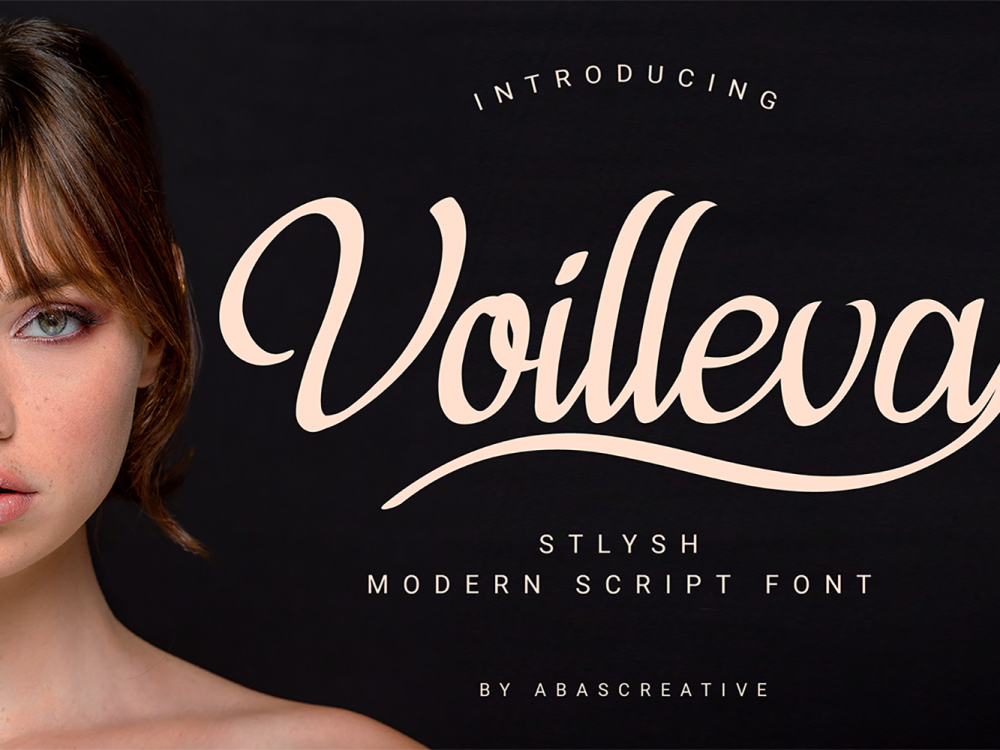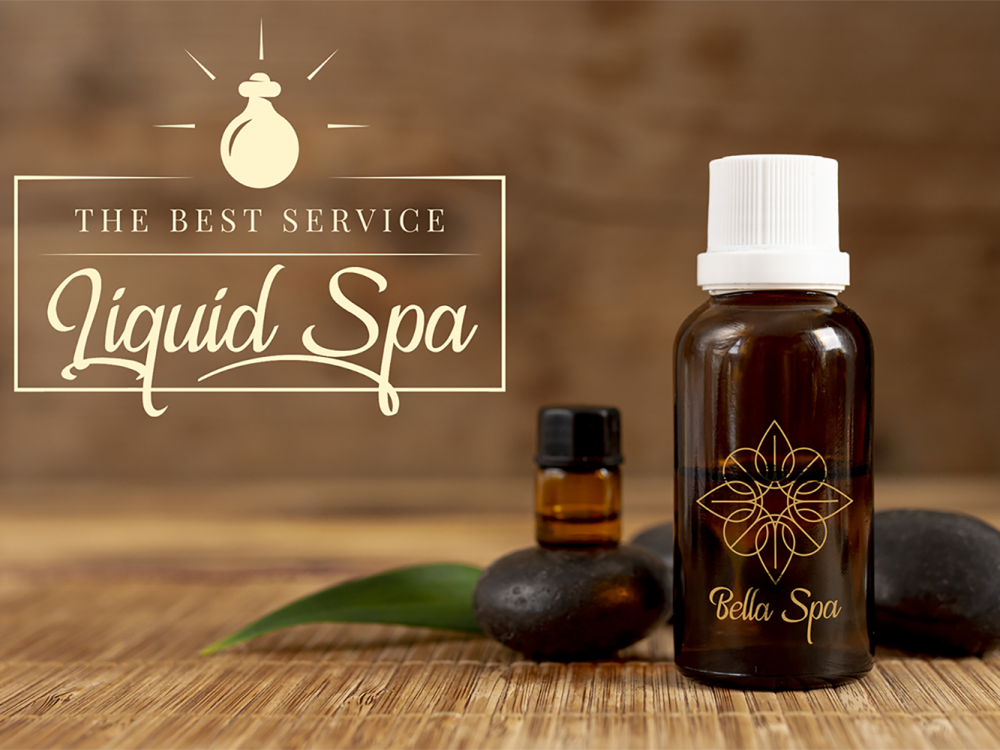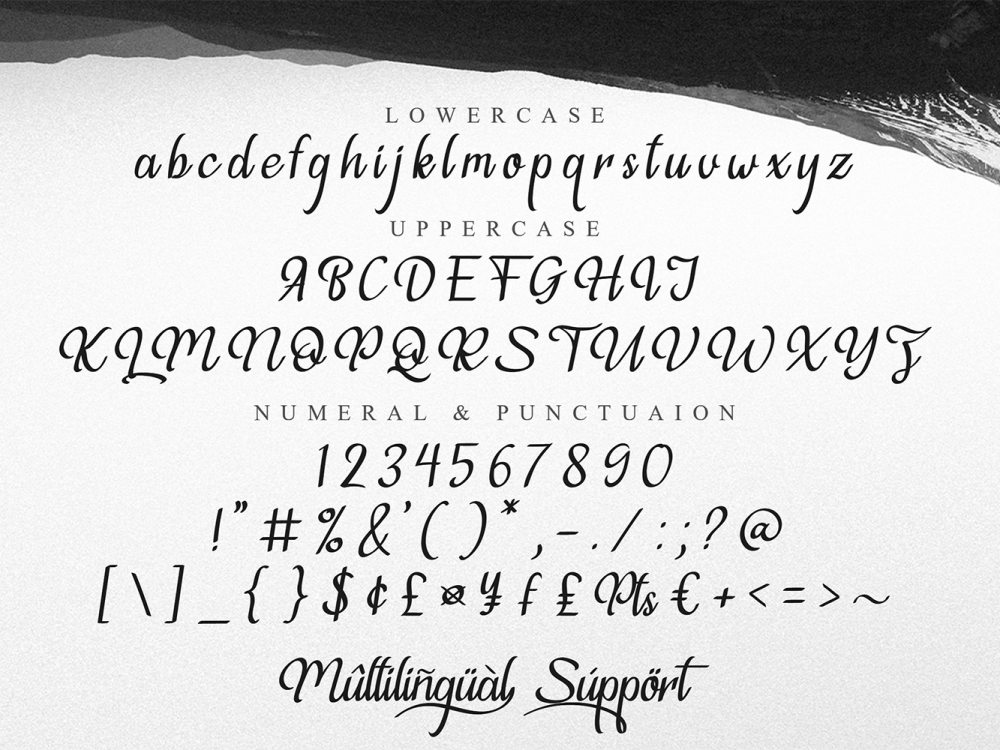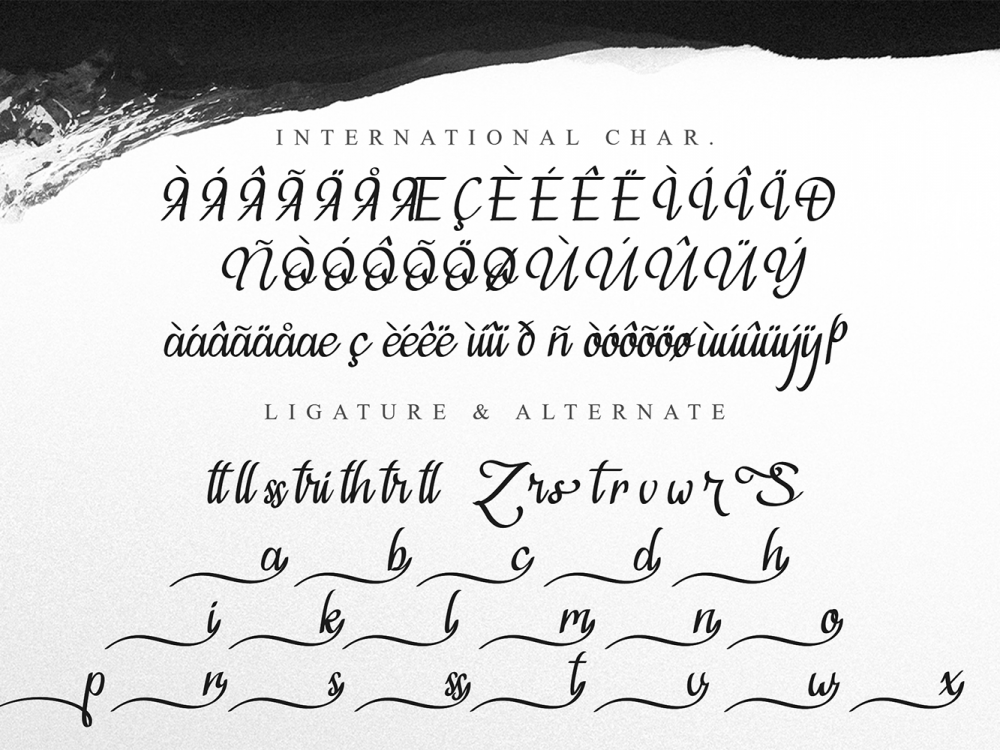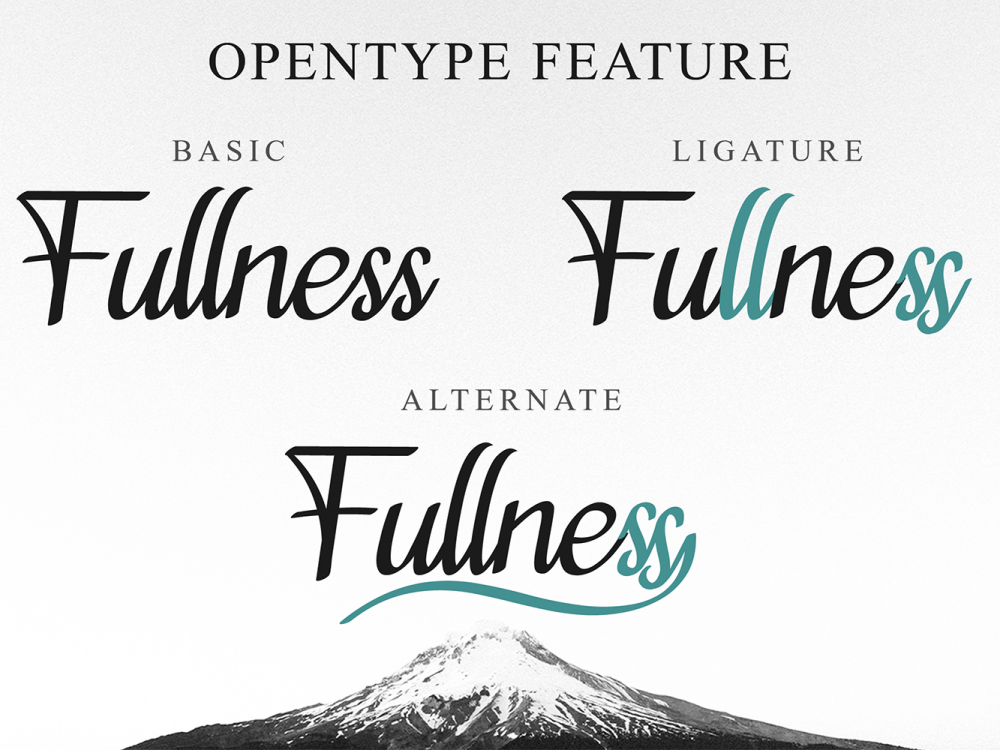
Violleva Free Font
Violleva Free Font is a stylish modern handwritten typeface featuring an elegant calligraphic style. This font will help you create unique design projects and improve your professional level. Use this font to create memorable posters, wedding invitations, cards, branding, flyers, and more. Improve the quality and increase the popularity of your design projects by using this font. If you like it don’t forget to check out the full version.